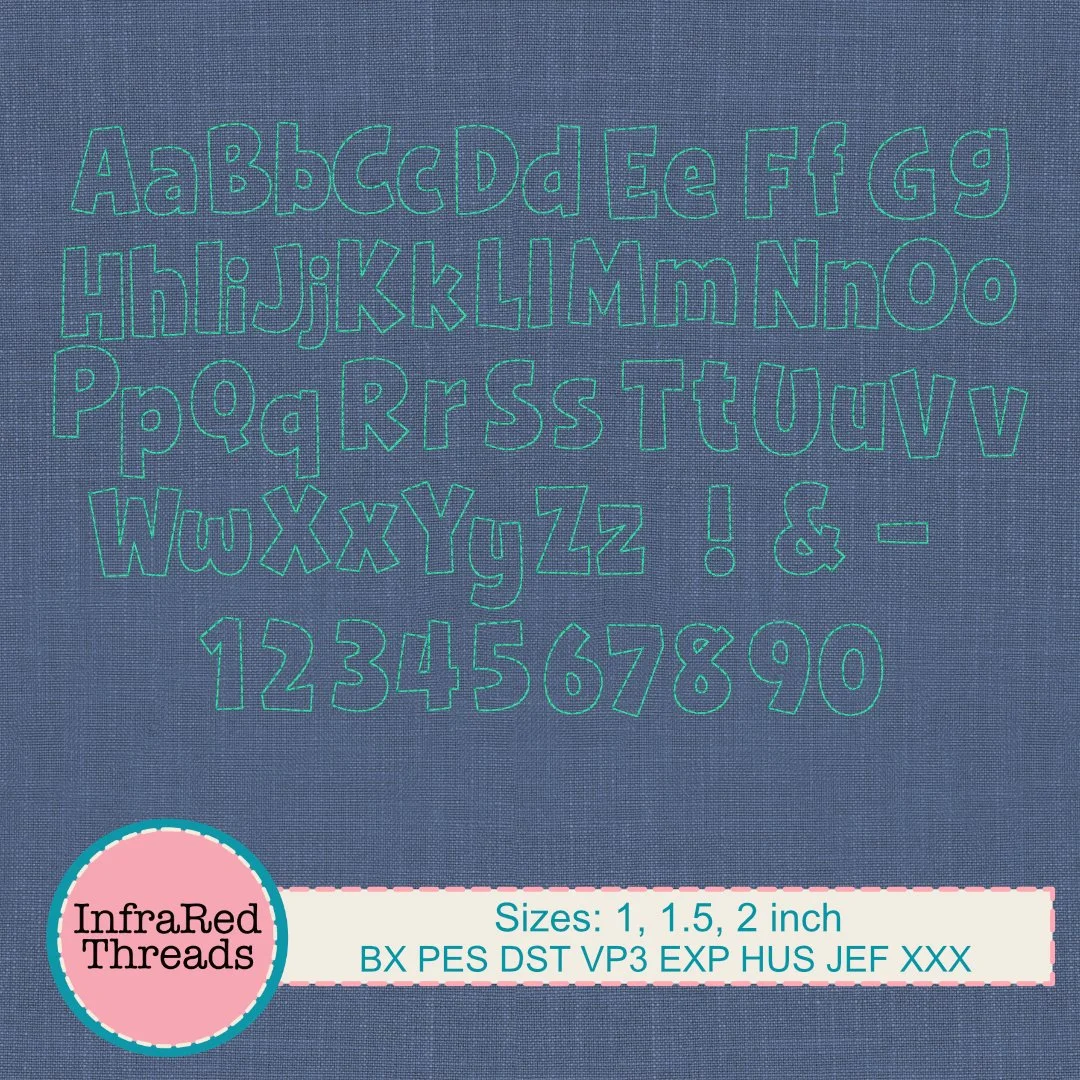
Poppy Bean Embroidery Font – Bold Bean Stitch Alphabet in 3 Sizes
The Poppy Bean Font is a cheerful, chunky embroidery alphabet created with a clean bean stitch outline. This bold and playful font is perfect for stitching on children’s items, tote bags, banners, and other fun projects. The open interior and colorful potential make it ideal for light fabrics or layered designs. Includes uppercase and lowercase letters in three sizes, plus BX format for seamless use in Embrilliance software.